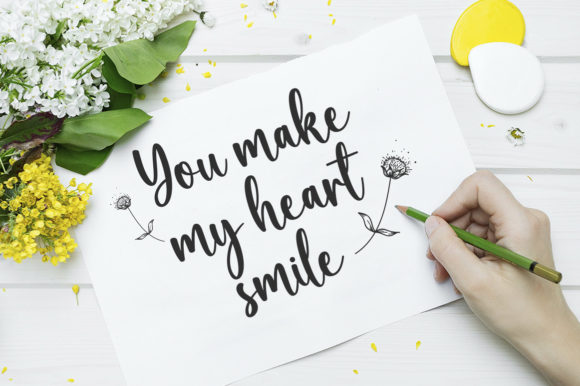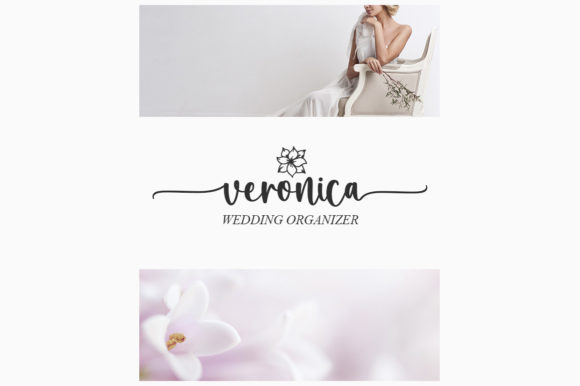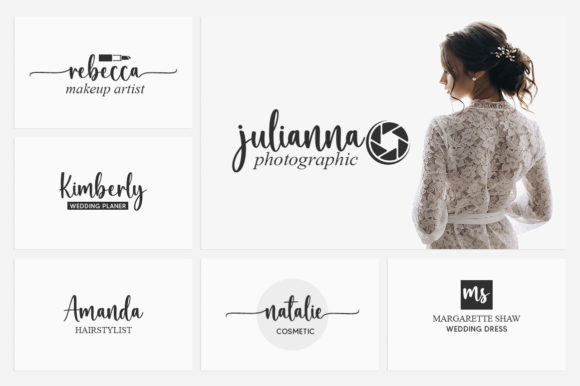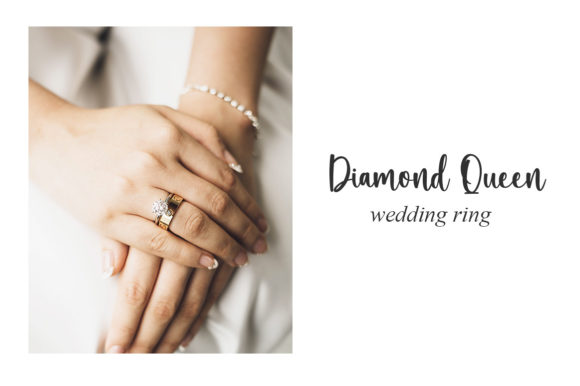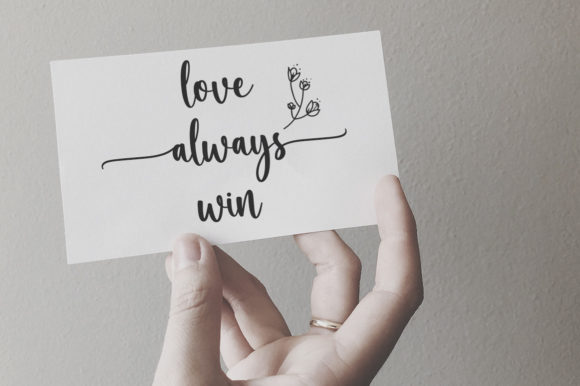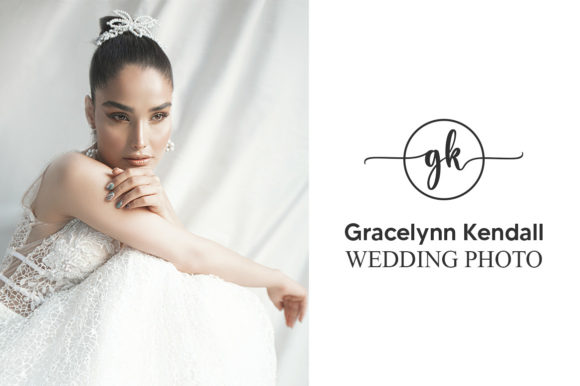
Discover the Elegance of Christina Font: A Sophisticated Script Font for Your Design Projects
Are you a designer or crafter looking for a font that exudes sophistication and elegance? Look no further than Christina Font, a delicate and refined script font that is perfect for adding a touch of luxury to any project. With its stylish alternates and ligatures, Christina Font is the ideal choice for designers and crafters who want to create beautiful and eye-catching designs.
What Makes Christina Font So Special?
Christina Font is a PUA (Private Use Area) encoded font, which means that you can access all glyphs and swashes with ease. This feature makes it easy to use and customize the font to suit your design needs. The font’s stylish alternates and ligatures add a level of sophistication and elegance to your designs, making it perfect for projects that require a high level of refinement.
Key Features of Christina Font
• Delicate and Refined Design: Christina Font features a delicate and refined design that is perfect for creating elegant and sophisticated designs.
• Stylish Alternates and Ligatures: The font comes with stylish alternates and ligatures that add a touch of luxury to your designs.
• PUA Encoded: Christina Font is PUA encoded, making it easy to access all glyphs and swashes.
• Easy to Use: The font is easy to use and customize, making it perfect for designers and crafters of all levels.
Christina Font is perfect for a variety of design projects, including:
• Wedding and Event Invitations: The font’s elegant and sophisticated design makes it perfect for wedding and event invitations.
• Branding and Packaging: Christina Font is ideal for branding and packaging projects that require a high level of refinement and sophistication.
• Signage and Displays: The font’s stylish alternates and ligatures make it perfect for signage and display projects.
• Digital and Print Media: Christina Font can be used for digital and print media, including brochures, flyers, and social media graphics.
Tips for Using Christina Font
Here are some tips for using Christina Font in your design projects:
• Use it as a Headline Font: Christina Font is perfect for use as a headline font, adding a touch of elegance and sophistication to your designs.
• Pair it with Other Fonts: The font pairs well with other fonts, making it easy to create visually appealing designs.
• Experiment with Different Sizes and Colors: Experiment with different sizes and colors to find the perfect combination for your design.
Christina Font is a sophisticated and elegant script font that is perfect for designers and crafters who want to add a touch of luxury to their designs. With its stylish alternates and ligatures, PUA encoding, and ease of use, Christina Font is the ideal choice for a variety of design projects. Whether you’re creating wedding invitations, branding and packaging, or digital and print media, Christina Font is sure to impress.